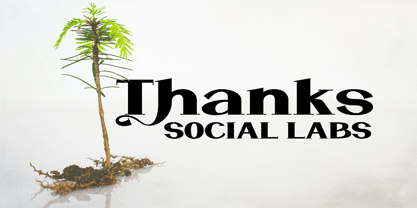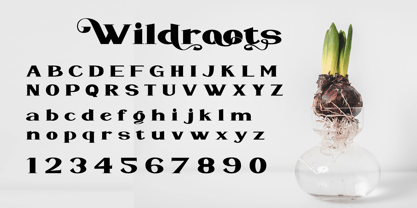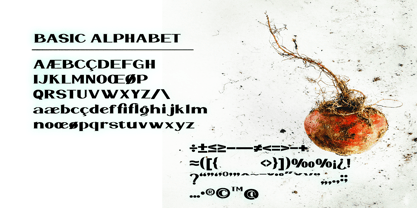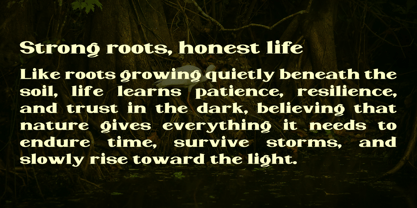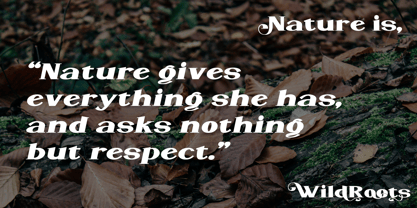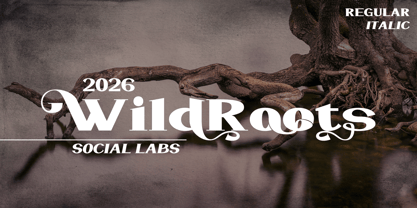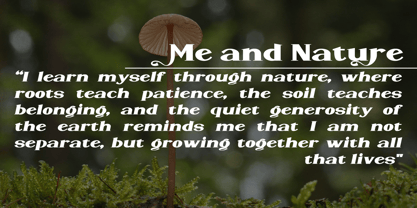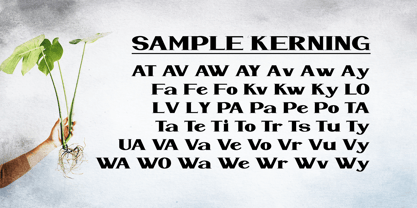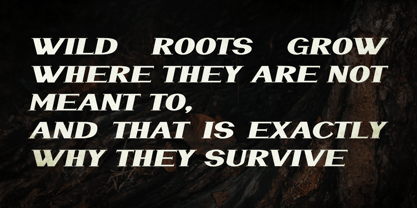
WildRoots
por Social Labs
La familia tipográfica WildRoots fue diseñada por Muhammad Naufal y publicada por Social Labs. WildRoots contiene 2 estilos y opciones de paquete familiar. Más información sobre esta familia
WildRoots is a decorative classic typeface that grows from the roots of tradition and free imagination Each letter features bold serif forms enriched with flowing ornamental curves inspired by vines and natural roots creating a wild yet harmonious movement Subtle swash details give the typeface a living organic and expressive feel reflecting the balance between the raw strength of nature and the elegance of classical typography With its strong vintage character and whimsical touch WildRoots delivers a bold dramatic and story rich presence making it an ideal choice for titles logos and display designs that seek a deeply rooted identity while remaining free spirited and distinctive.